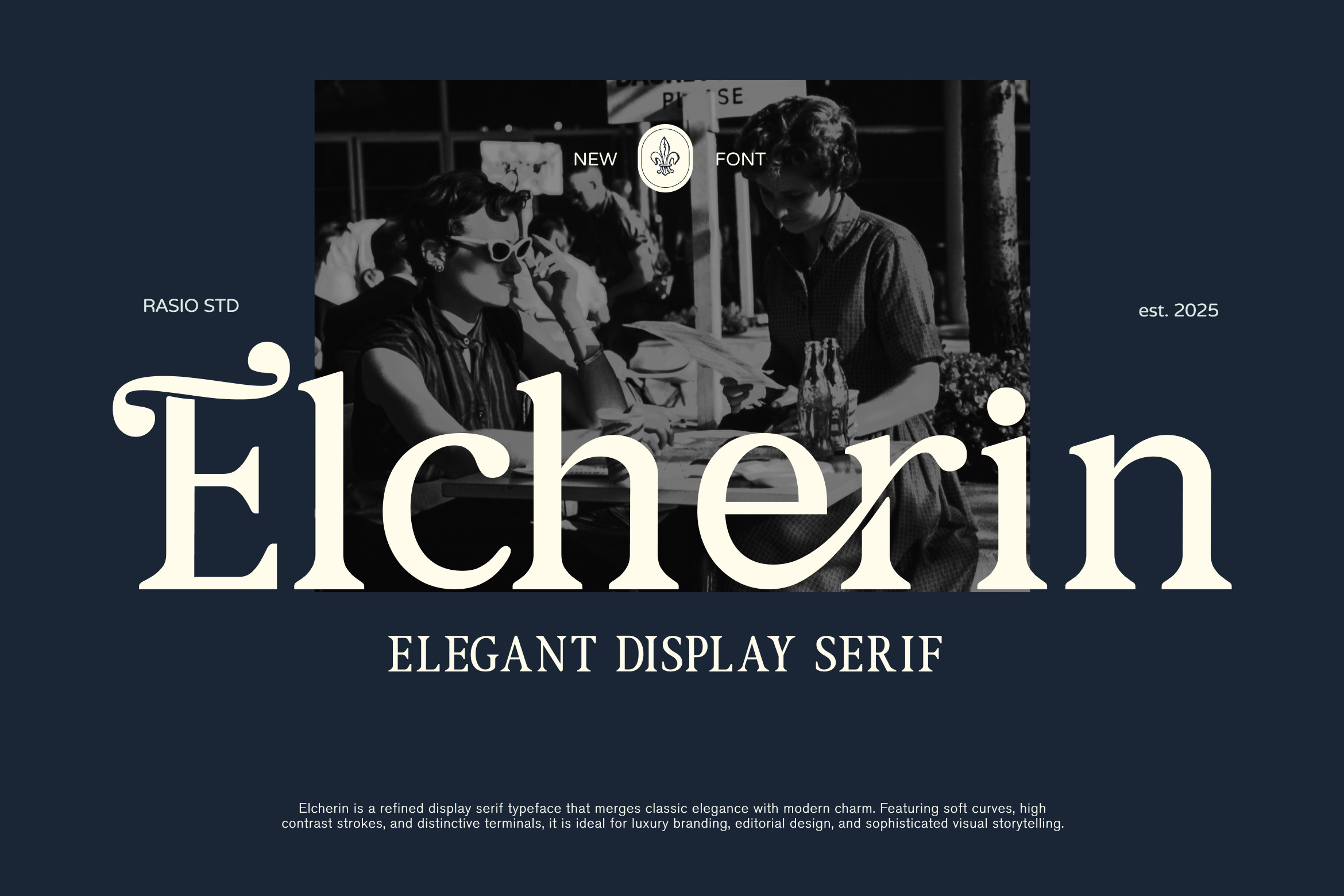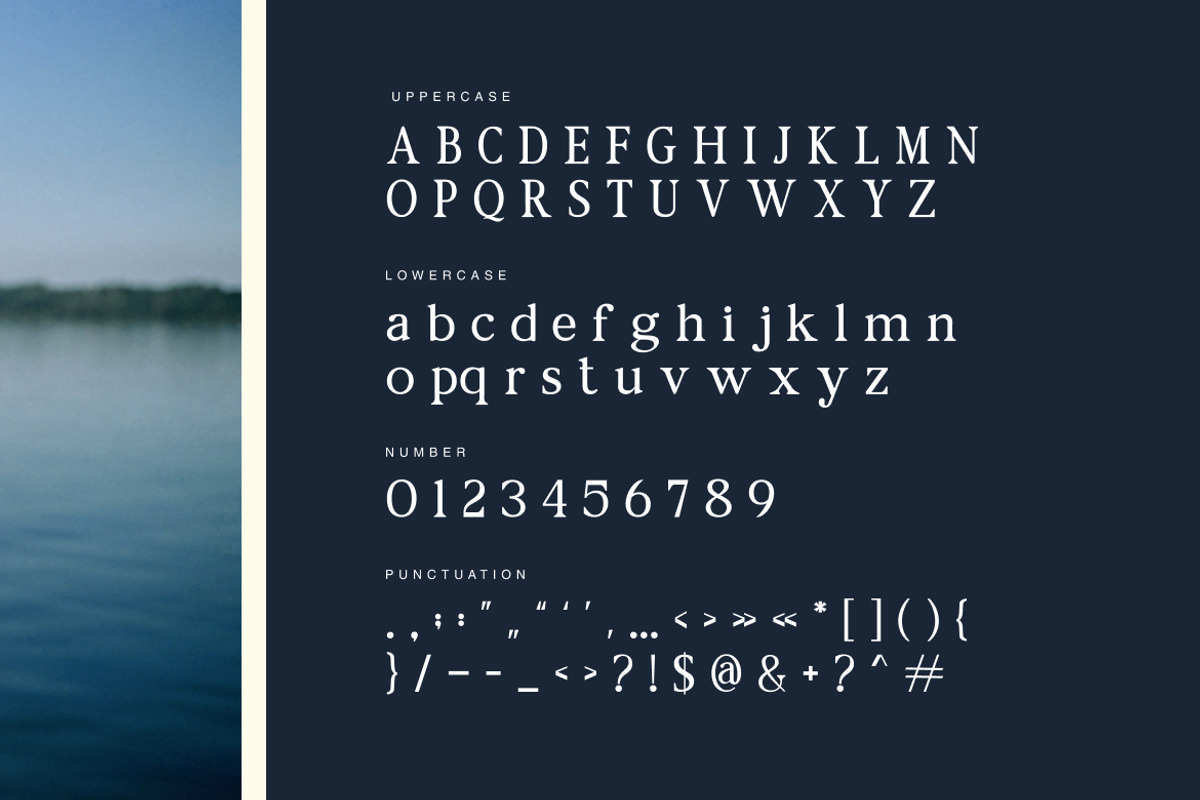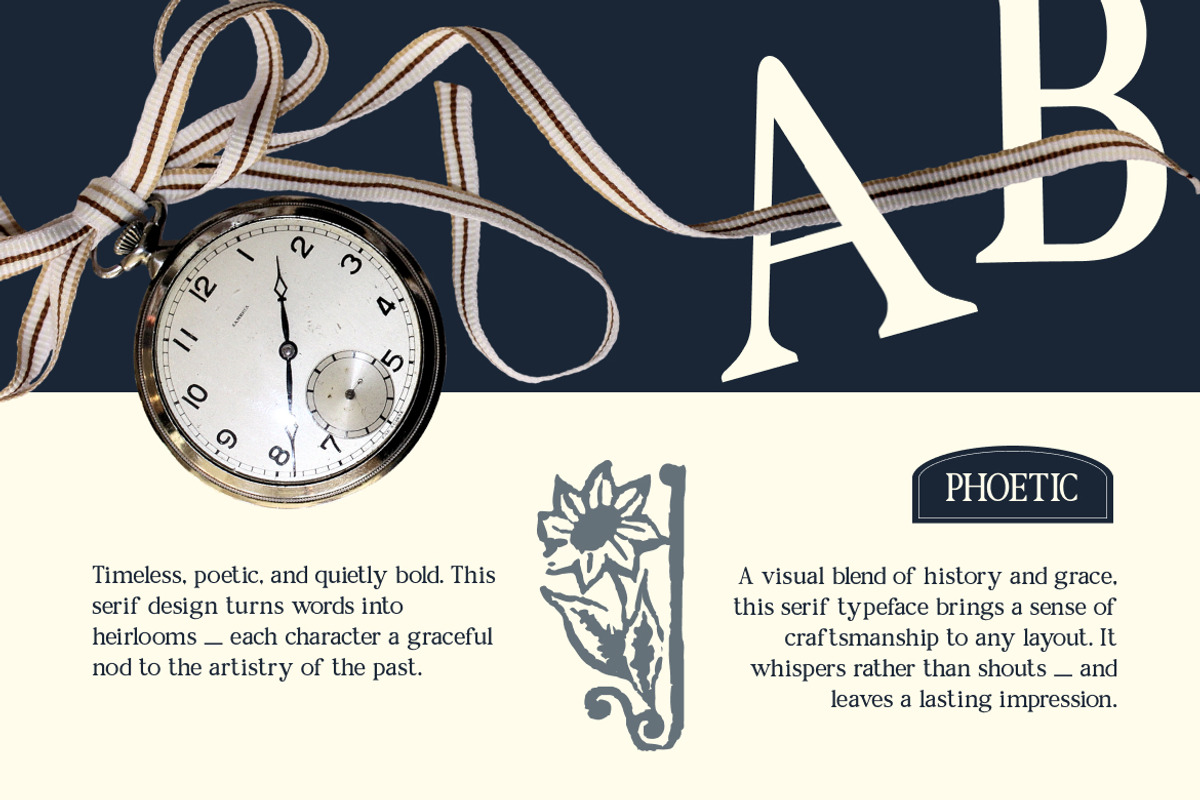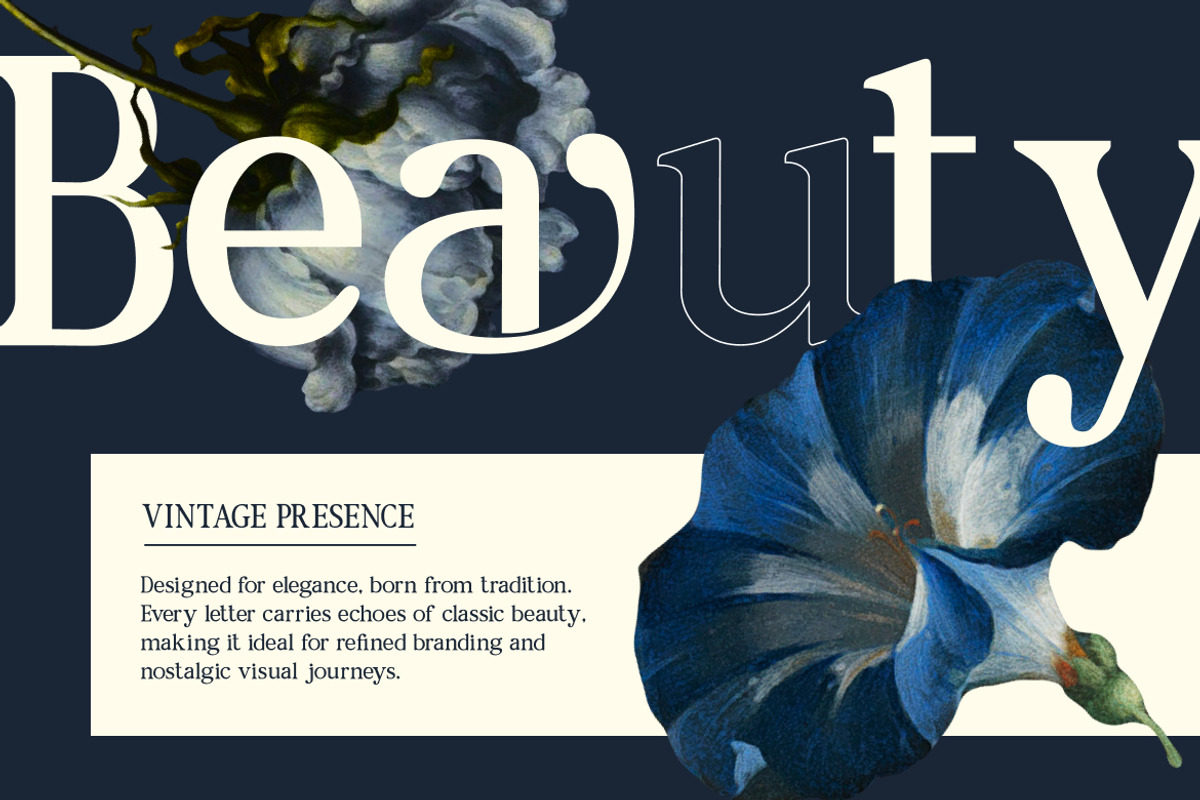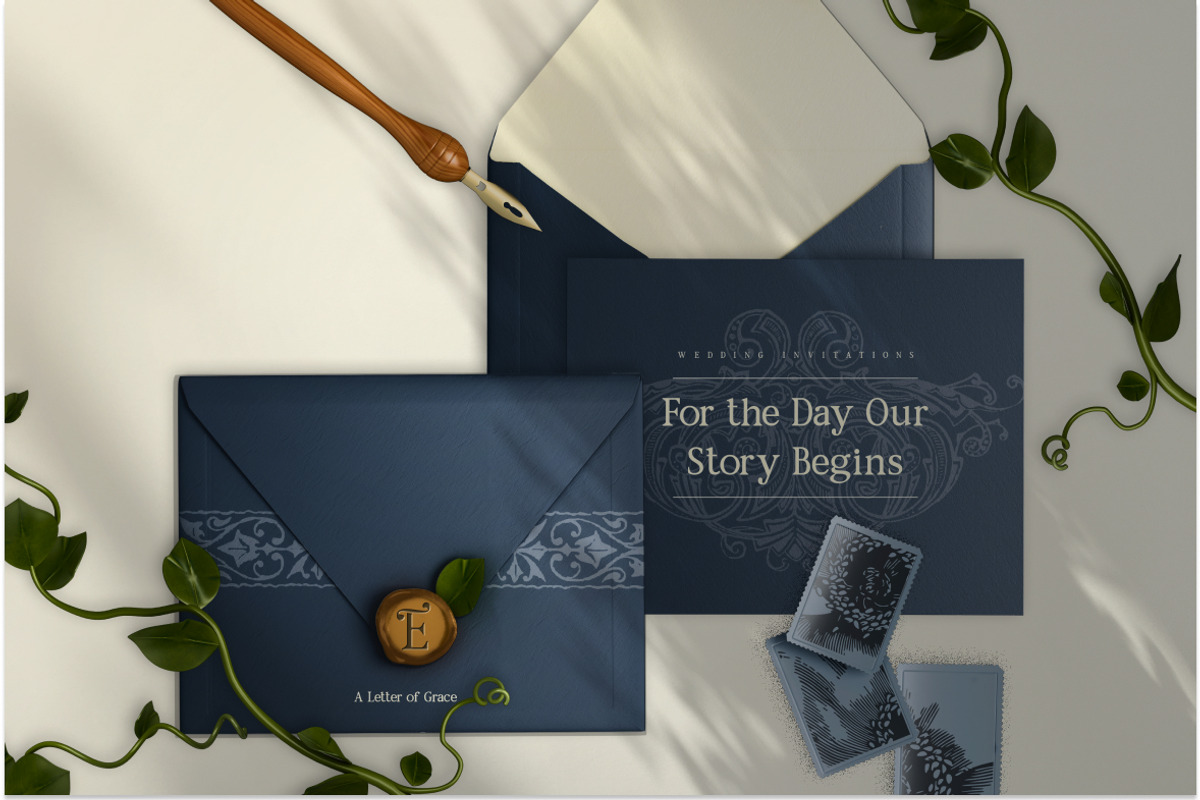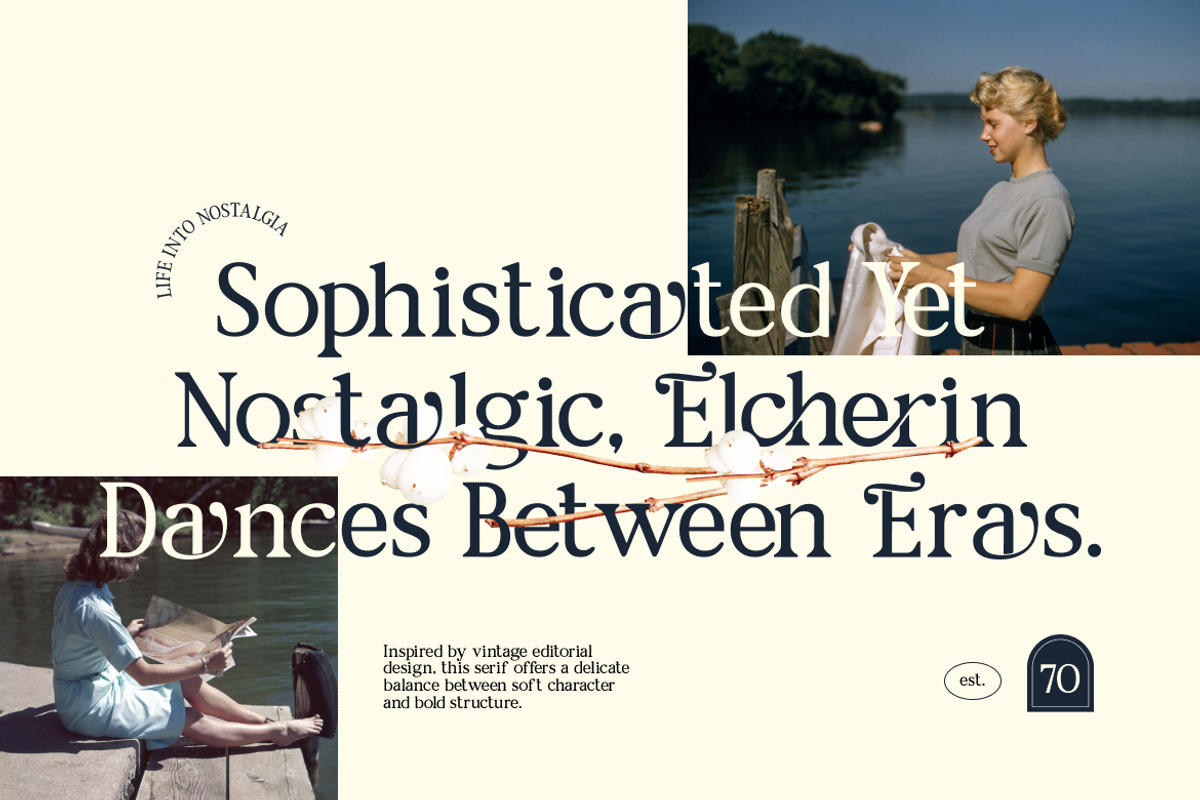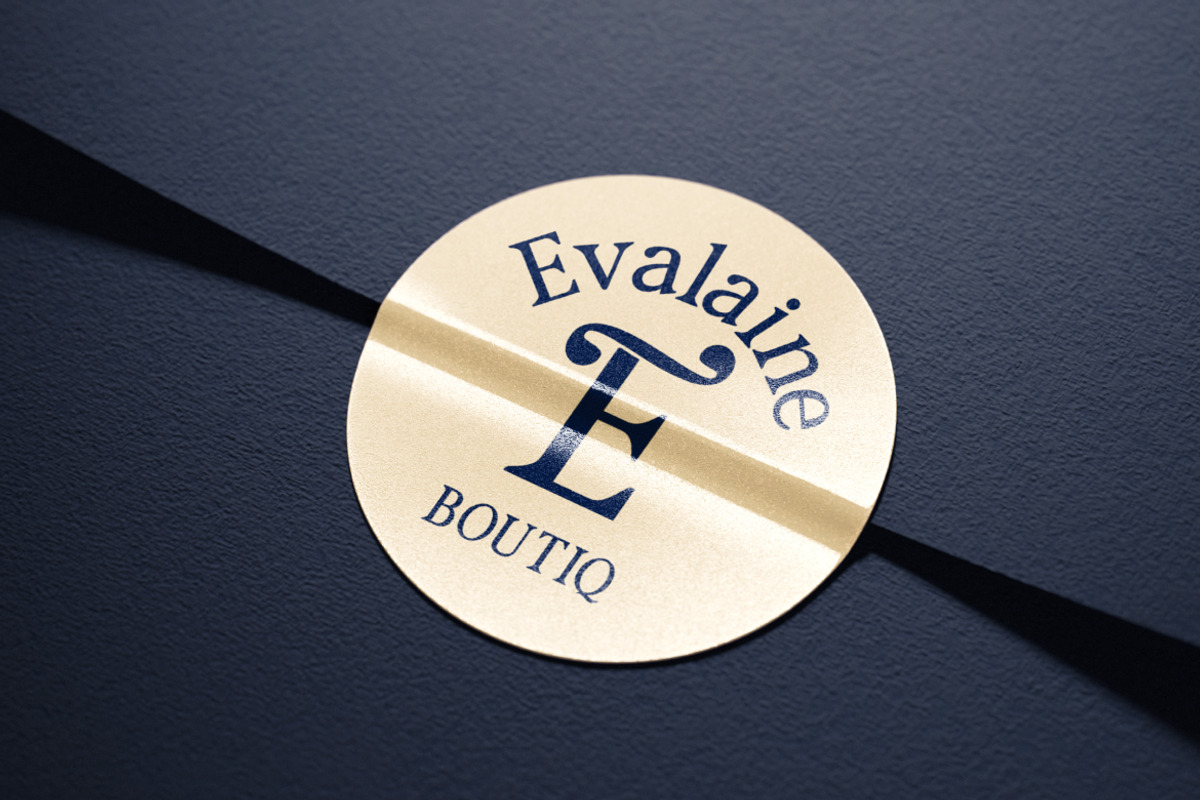
Elcherin Elegant Display Serif Font
Elcherin is a refined display serif typeface that blends classical beauty with modern sophistication. Featuring soft curves, delicate contrast, and uniquely stylized terminals, it evokes a timeless charm ideal for upscale branding, editorial design, and visual storytelling. This font includes uppercase and lowercase letters, numerals, punctuation, and multilingual support in OTF/TTF/Webfont formats.
Elcherin stands out in creative projects that require a refined and nostalgic aesthetic. With its vintage roots and elegant finish, it’s perfect for fashion editorials, luxury product packaging, heritage-inspired branding, wedding invitations, timeless logo design, book covers, and elegant website headlines. Its harmonious blend of old and new makes it highly adaptable for sophisticated and emotional storytelling.
- Classic serif construction with modern, elegant refinement
- Distinctive terminals and soft curves for graceful visual flow
- High contrast strokes enhance sophistication and visual hierarchy
- Custom ligatures and stylistic alternates for added personality
- Balanced proportions ideal for luxury branding, editorial layouts
- High-end brand identity systems needing timeless sophistication
- Editorial design, fashion magazines, and art publications
- Luxury product packaging and boutique label designs
- Elegant wedding invitations, stationery, and event collateral
- Social media graphics, marketing materials with a refined visual presence
Supports numerals, punctuation, and extensive symbol set